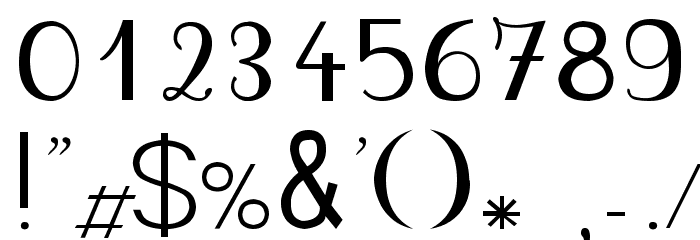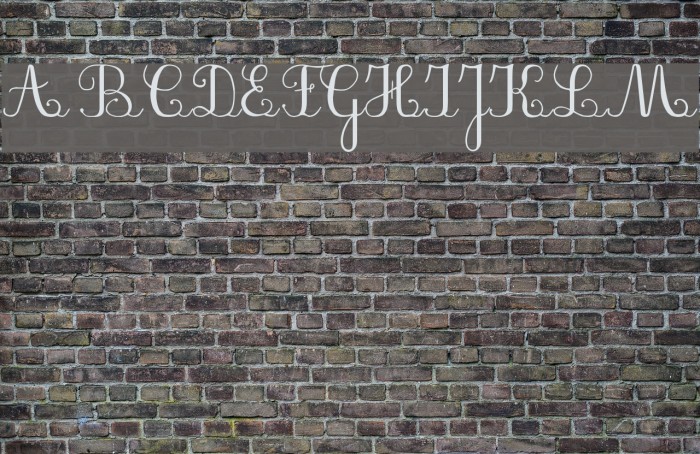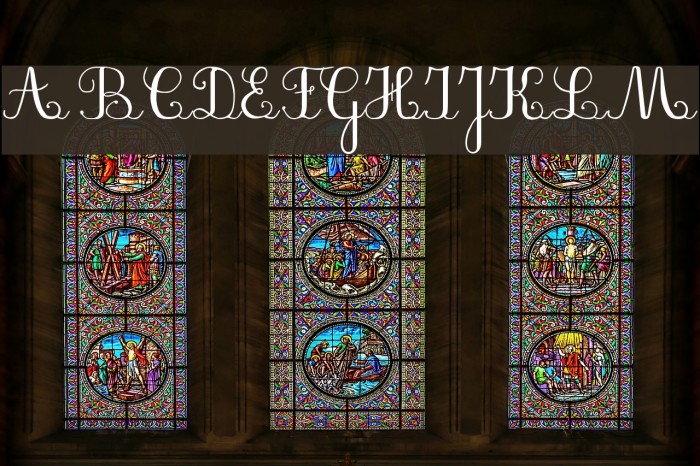
PlumBDL Font
This font features an elegant and decorative style, characterized by its intricate swirls and loops that extend from the ends of each letter. The uppercase letters are particularly ornate, with flourishes that give them a sophisticated and artistic appearance. The lowercase letters maintain a more restrained yet still decorative style, ensuring readability while retaining the font's unique charm. The numerals are clean and slightly more straightforward, providing a nice balance to the overall design. Special characters are crafted with the same attention to detail, making them suitable for creative and artistic projects.
An elegant and decorative font with intricate swirls and loops.